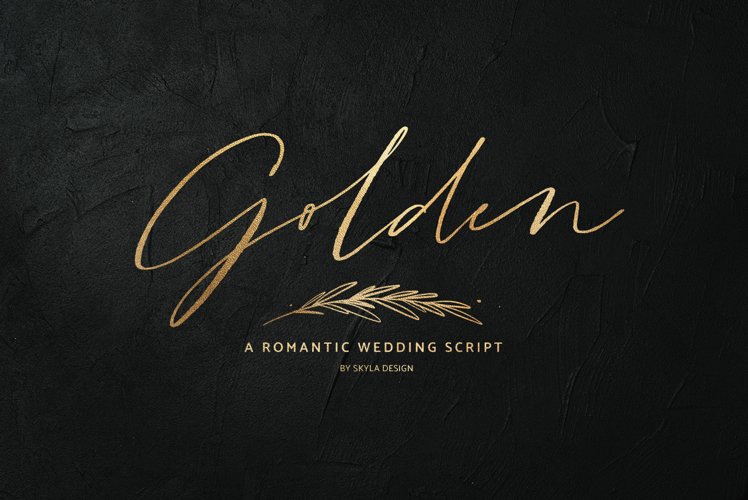
Golden, a romantic wedding script font
Golden is a stunning collection of a romantic script & botanical art. Use this collection to create the most gorgeous wedding designs, mood boards, invites, wall art & branding designs.
- This font does not come in a gold color but in a solid black.